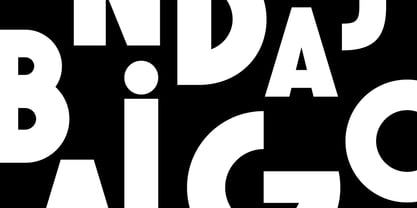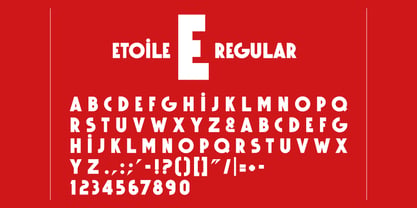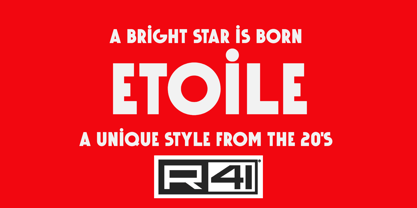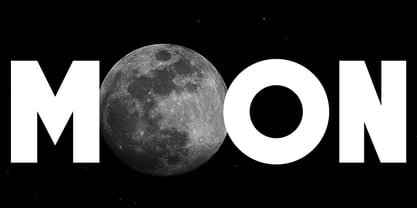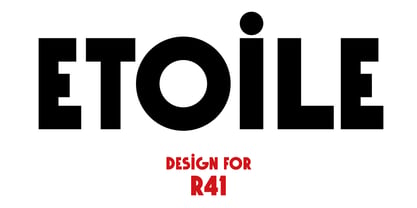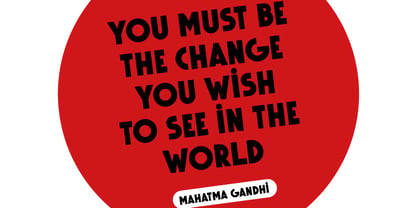
R41 Etoile
by Reber R41
The R41 Etoile Font Family was designed by Ariel Brandolini, Daniele Medina and published by Reber R41. R41 Etoile contains 1 styles. More about this family
R41 Etoile is based on the display lettering of A. M. Cassandre’s famous 1927 “Étoile du Nord” poster celebrating the glamor of European rail travel. R41’s revival of this lettering draws upon numerous other styles of Art Deco lettering to provide a playful new expression of that iconic era. This geometric sans-serif font with soft shapes is a modern, clean, and low-contrast typeface.
Designers: Ariel Brandolini, Daniele Medina
Foundry: Reber R41